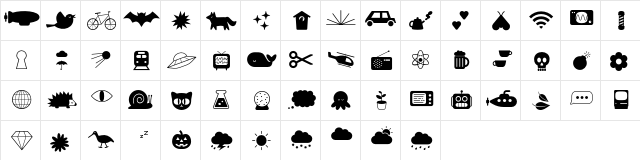
| Foundry | Ursa Minor |
| Designer | Alex Tomlinson |
Design Context for Whirlybats Typeface
Whirlybats is a composed and adaptable typeface that performs quietly and consistently across a wide range of design contexts.